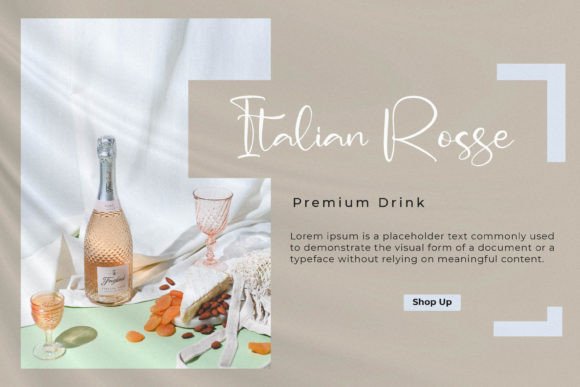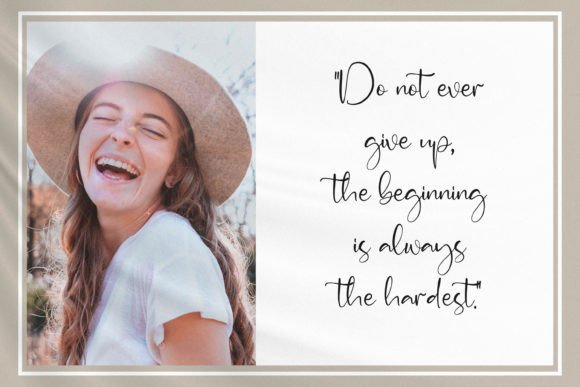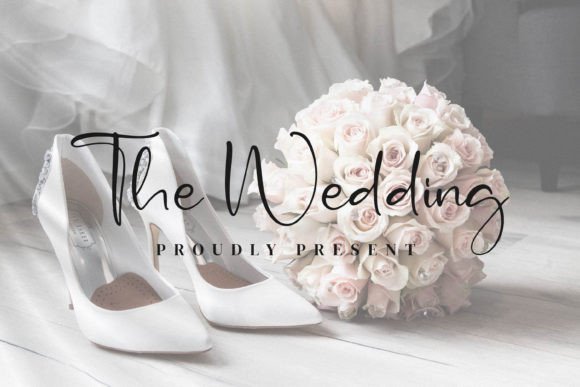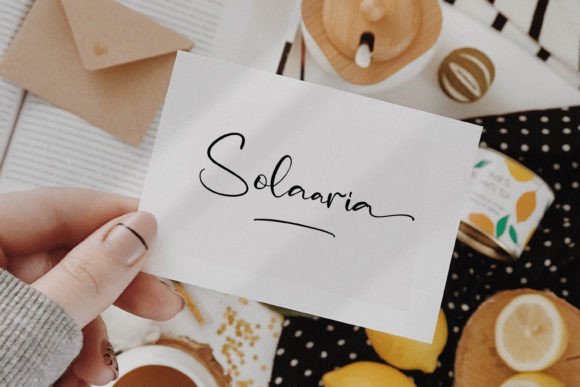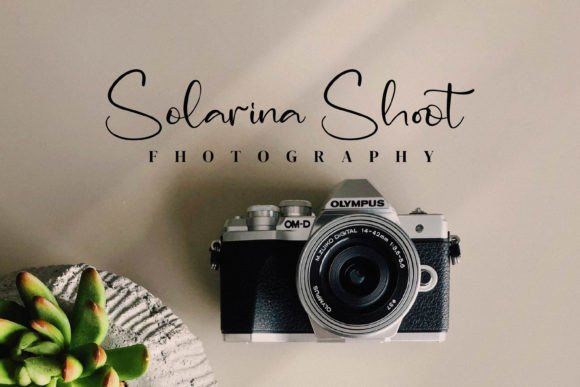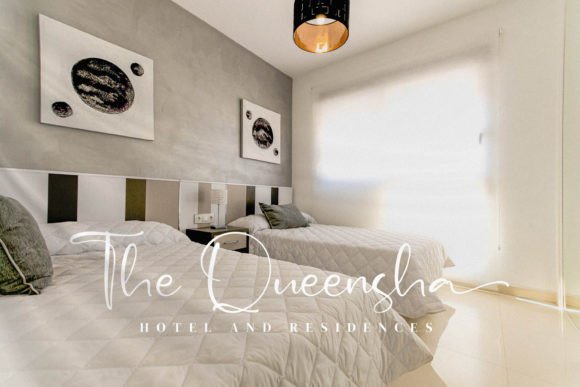
The Magic of Asmeralka Font: A Designer’s Delight
I’ll never forget the time I was working on a branding project for a small business, and I just couldn’t find the right font to capture their playful yet elegant vibe. That was until I stumbled upon Asmeralka Font, a lovely and timeless handwritten font that instantly became my go-to. In this article, I’ll share my love for Asmeralka, its features, and how to make the most of it in your designs.
An Honest Review of Asmeralka Font
• Unique and beautiful touch to every letter
• Perfect for creating eye-catching logos, branding, and quotes
• Timeless and elegant feel that’s suitable for various design projects
• Easy to read and understand, even in smaller sizes
• Great for adding a personal touch to your designs
• May not be the best choice for very formal or corporate designs ⚠️
• Some users might find the handwritten feel too casual for their taste
• Limited availability of certain characters or glyphs (but still plenty to work with!) ⚠️
The Story Behind Asmeralka Font
Asmeralka Font was designed with love and care by a talented type designer who aimed to create a timeless, handwritten font. The story goes that the designer was inspired by traditional calligraphy and hand-lettering techniques, which they used to craft each unique letterform. The result is a font that’s both elegant and approachable, perfect for a wide range of design projects.